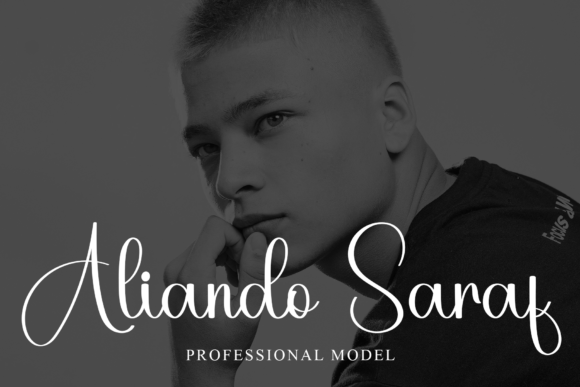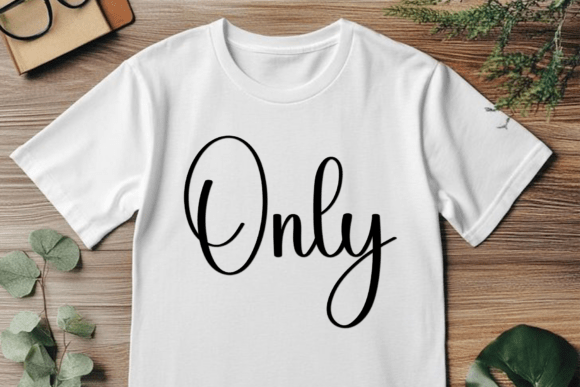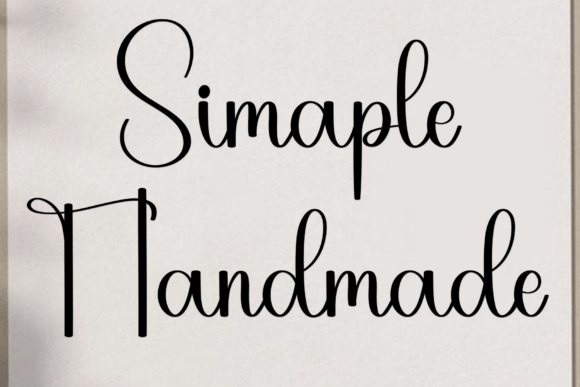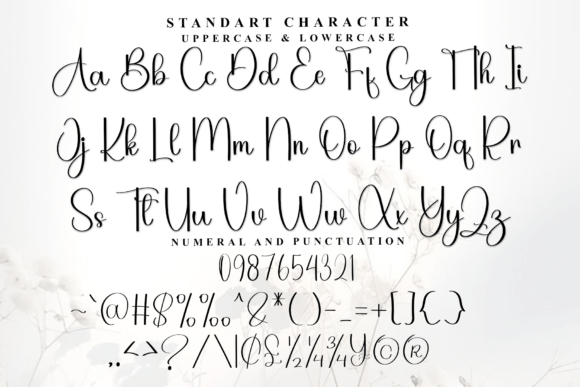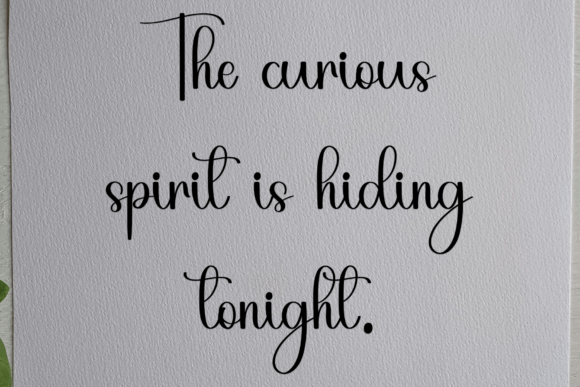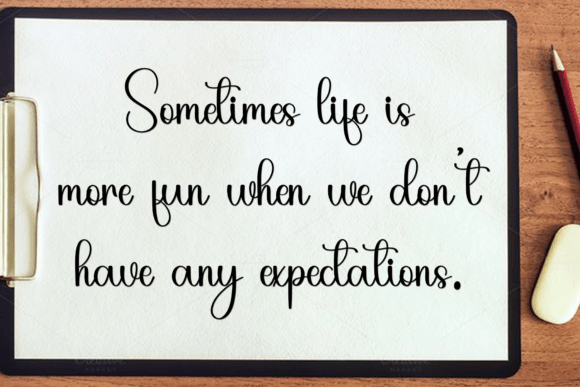
Introducing Almighty Font: Elevate Your Designs with Elegance and Sophistication
In the world of typography, fonts play a crucial role in conveying the tone and personality of a design. For designers and crafters seeking to add a touch of elegance and sophistication to their work, Almighty Font is an exceptional choice. This stylish and incredibly elegant script font is perfect for a variety of design projects, including wedding invitations, thank you cards, quotes, greeting cards, logos, business cards, and more.
The Versatility of Almighty Font
One of the standout features of Almighty Font is its versatility. Its beautiful, handwritten aesthetic makes it suitable for a wide range of applications. Whether you’re designing a wedding invitation, a business card, or a quote, Almighty Font adds a touch of class and sophistication that elevates your work from ordinary to extraordinary.
Weddings and special events are occasions where elegance and style are paramount. Almighty Font is specifically well-suited for wedding invitations, save-the-date cards, and other event-related designs. Its flowing script and elegant lines evoke a sense of romance and luxury, setting the tone for a memorable and stylish event.
Ideal for Stationery and Greeting Cards
For crafters and designers who specialize in stationery and greeting cards, Almighty Font offers a wealth of creative possibilities. Its beautiful, handwritten aesthetic adds a personal touch to thank you cards, greeting cards, and other correspondence, making them feel more special and heartfelt.
Enhance Your Brand with Almighty Font
Businesses looking to establish a strong brand identity can also benefit from using Almighty Font. Its elegant and sophisticated appearance makes it perfect for logos, business cards, and other marketing materials. By incorporating Almighty Font into your brand design, you can convey a sense of luxury, refinement, and attention to detail.
Key Features of Almighty Font
- Elegant Script Font: Almighty Font features a beautiful, flowing script that adds a touch of elegance to any design.
- Versatile: Suitable for a wide range of design projects, including wedding invitations, business cards, quotes, and more.
- Handwritten Aesthetic: Gives your designs a personal, handwritten touch that feels special and unique.
Tips for Using Almighty Font
- Pair with Complementary Fonts: Combine Almighty Font with simpler fonts to create visual interest and hierarchy in your designs.
- Use for Headlines and Titles: Almighty Font is perfect for headlines and titles, where its elegant script can make a big impact.
Almighty Font is a stylish and elegant script font that offers designers and crafters a versatile tool for creating beautiful, sophisticated designs. Its handwritten aesthetic and flowing script make it perfect for a wide range of applications, from wedding invitations and stationery to logos and business cards. With its ease of use and stunning appearance, Almighty Font is an excellent choice for anyone looking to elevate their designs with elegance and sophistication.